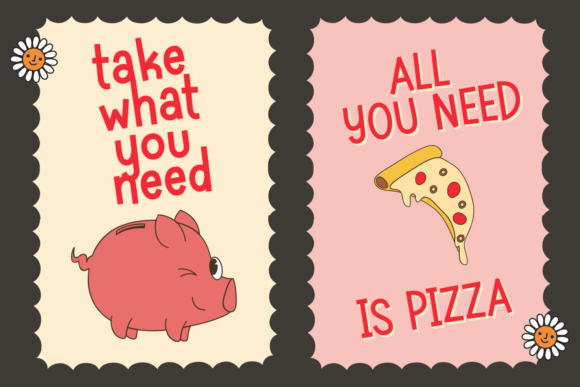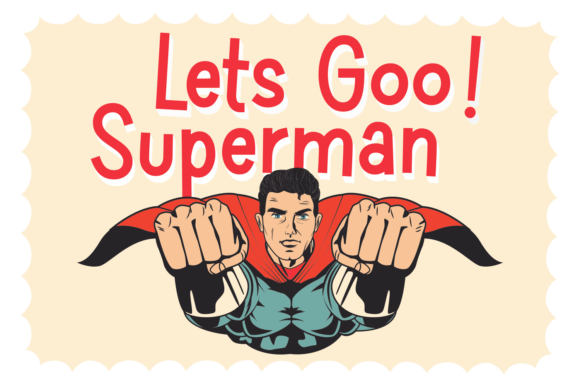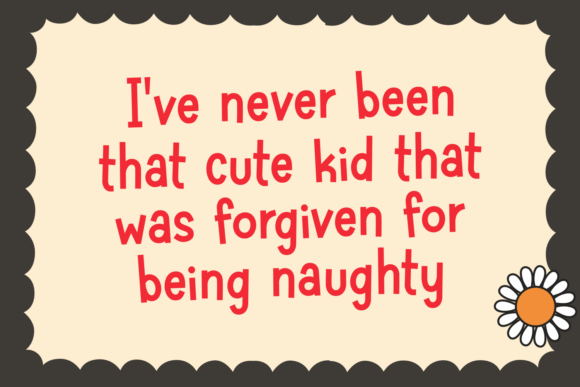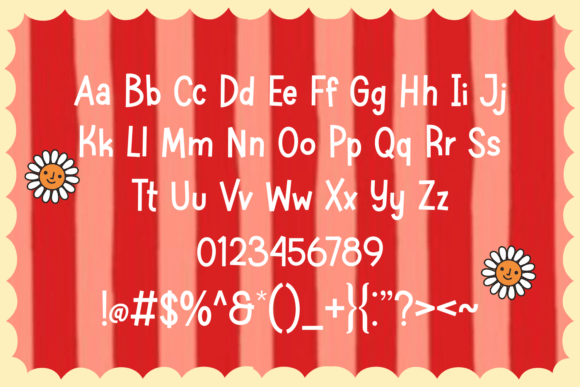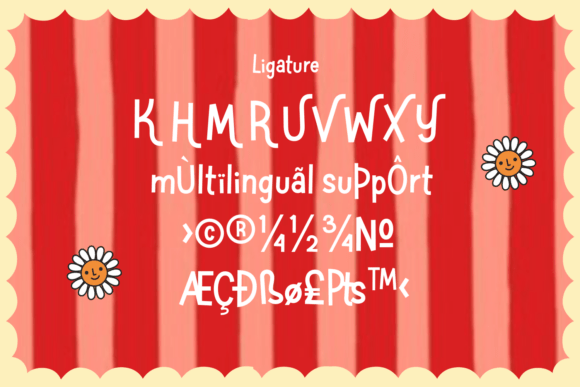
Introduction to Kate Funky Font
Have you ever been brainstorming a creative project and suddenly, the perfect font pops into your mind, setting the tone for your entire design? That’s exactly what happened to many designers when they stumbled upon the Kate Funky Font. This playful display typeface is an instant mood-booster, exuding a cheerful personality that’s hard to resist.
Designed to make a statement in large headlines, Kate Funky Font is a free download that’s become a valuable design resource for creatives around the world. With its high-quality, hand-drawn look and feel, this font is perfect for adding a touch of whimsy to any project. Whether you’re working on a commercial campaign or a personal blog, Kate Funky Font is sure to bring a smile to your audience’s face.
What sets Kate Funky Font apart is its unique combination of chunky proportions, rounded terminals, and a dash of asymmetry. The result is a font that’s both fun and expressive, making it a great choice for designers looking to add some personality to their work.
Key Features of Kate Funky Font
- Unique, hand-drawn design ideal for creative projects and artistic expression
- High-quality font with transparent background, perfect for use on any background or design element
- Includes multiple font styles and weights, offering versatility and flexibility for creative applications
- Designed with a high resolution of 300 DPI, ensuring crisp and clear text output in print and digital media
- Perfect for use in graphic design, digital art, and other creative pursuits where a funky, eclectic font is desired
Honest Review: Kate Funky Font
I recently stumbled upon the Kate Funky Font, and I have to say, it’s been a game-changer for my design projects. This high-quality font is perfect for anyone looking to add a touch of personality to their creative project.
Here’s what I love about the Kate Funky Font:
- ✨ It has a transparent background, making it easy to customize and blend with any design.
- ✨ The font is highly versatile, suitable for a wide range of design applications, from logos to typography.
- ⚠️ Some users may find the font a bit too quirky, which may not be suitable for all design projects.
Overall, I’m thoroughly impressed with the Kate Funky Font. It’s a fantastic design resource that adds a unique touch to any creative project. If you’re looking for a high-quality font that’s easy to use, I highly recommend giving it a try.
Tips for Getting the Most Out of Kate Funky Font
To get the most out of Kate Funky Font, experiment with different font sizes, colors, and combinations. You can also pair the font with other design elements, such as images and shapes, to create a unique and eye-catching design.
Common Use Cases for Kate Funky Font
Kate Funky Font is ideal for creative projects, such as graphic design, social media graphics, and digital art. It is also suitable for branding and marketing materials, such as business cards, flyers, and brochures.